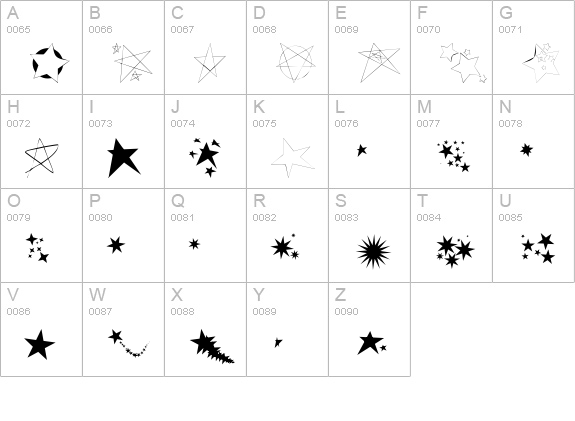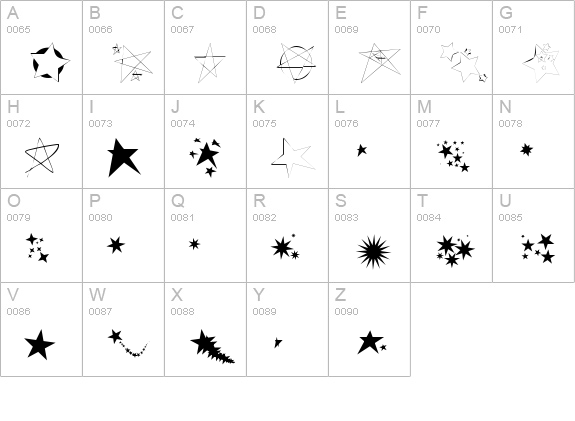
Freaking Stars font is a stunning display typeface that exudes a sense of modernity and sophistication. With its bold and striking design, this font is perfect for creating eye-catching headlines, posters, and branding materials. The unique star-shaped elements within the characters add a touch of whimsy and playfulness to any design. What makes Freaking Stars font even more appealing is that it is available for free download at FontsMarket.com. This means that you can easily access this stylish font and incorporate it into your projects without any cost. Whether you're a designer looking to add a touch of flair to your work or a business owner seeking a standout font for your marketing materials, Freaking Stars font is sure to make a lasting impression. Download it now and let your creativity shine!